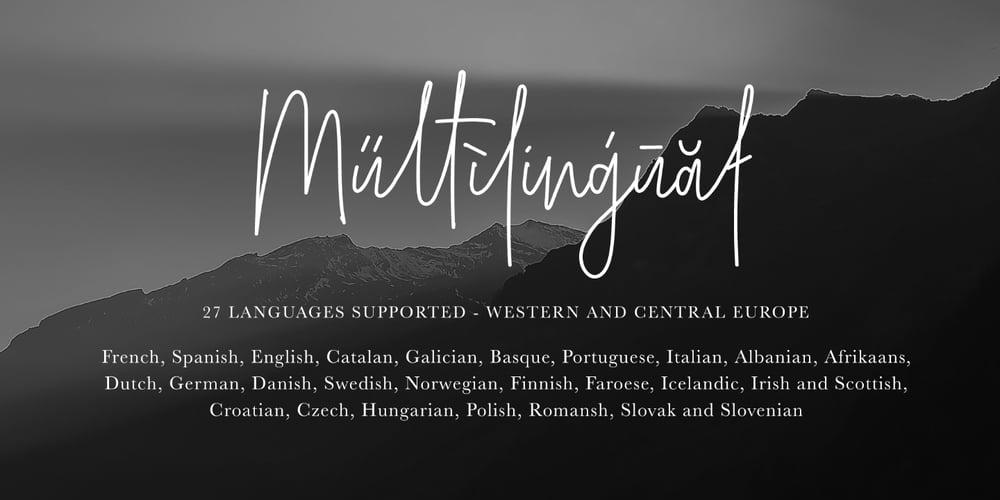
Belmont Font Family was designed by Greg Nicholls and published by Rook Supply. Belmont contains 5 styles and family package options. Looking for an elegant font to class up the place? Maybe you have some wedding invitations that you’ve been putting off for a month. Belmont is an elegant, modern script font that is perfect for contemporary occasions.